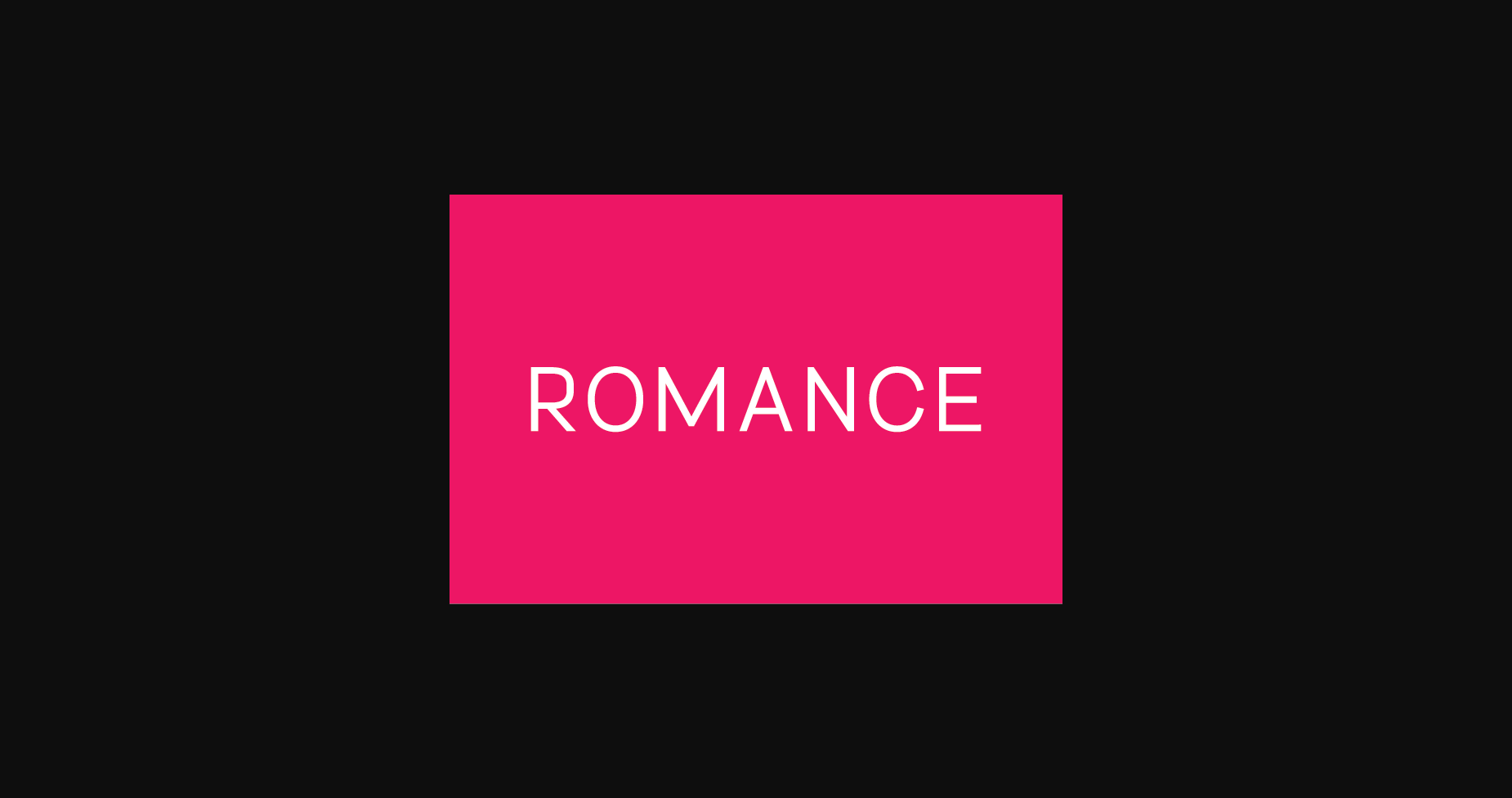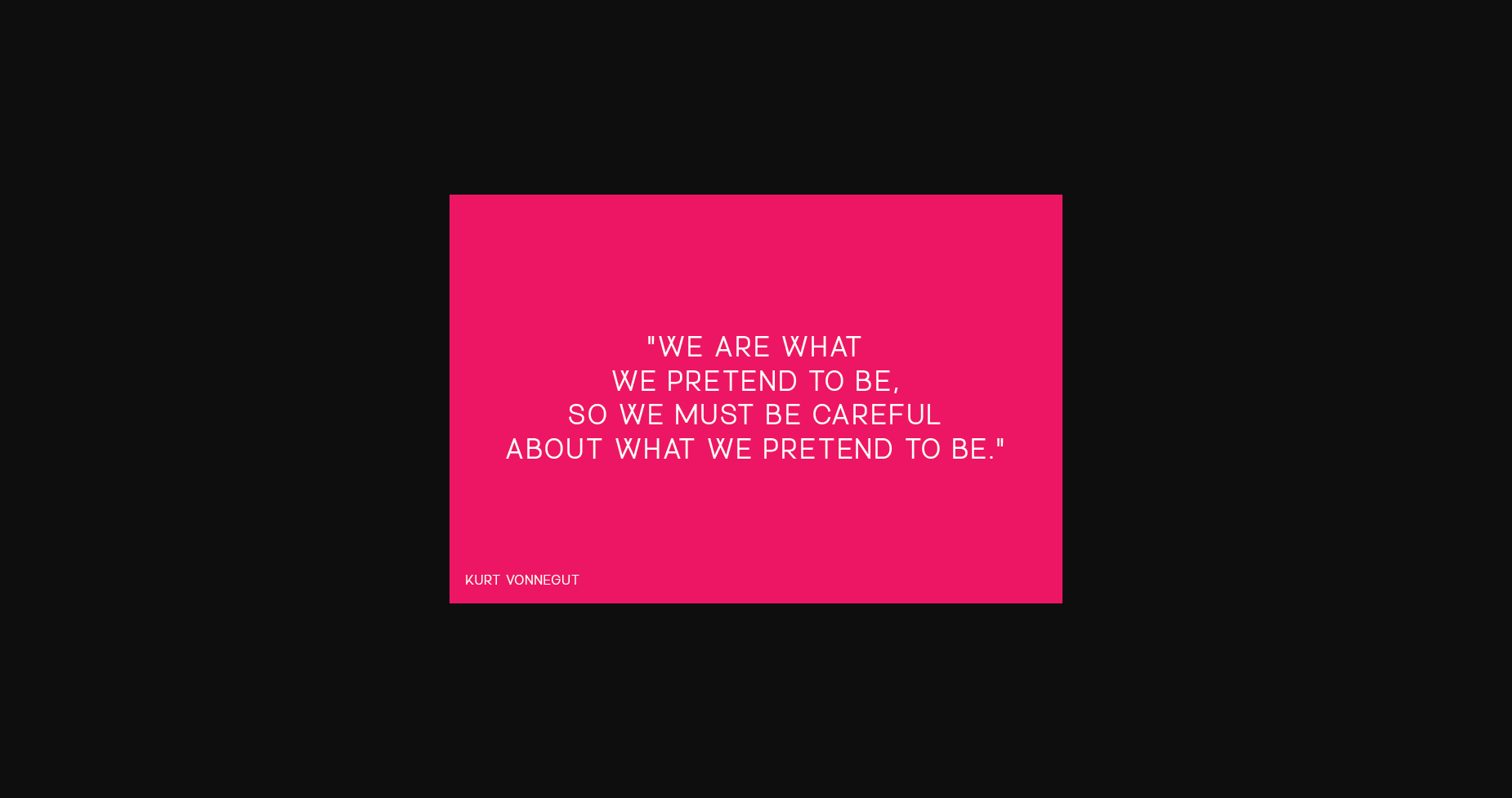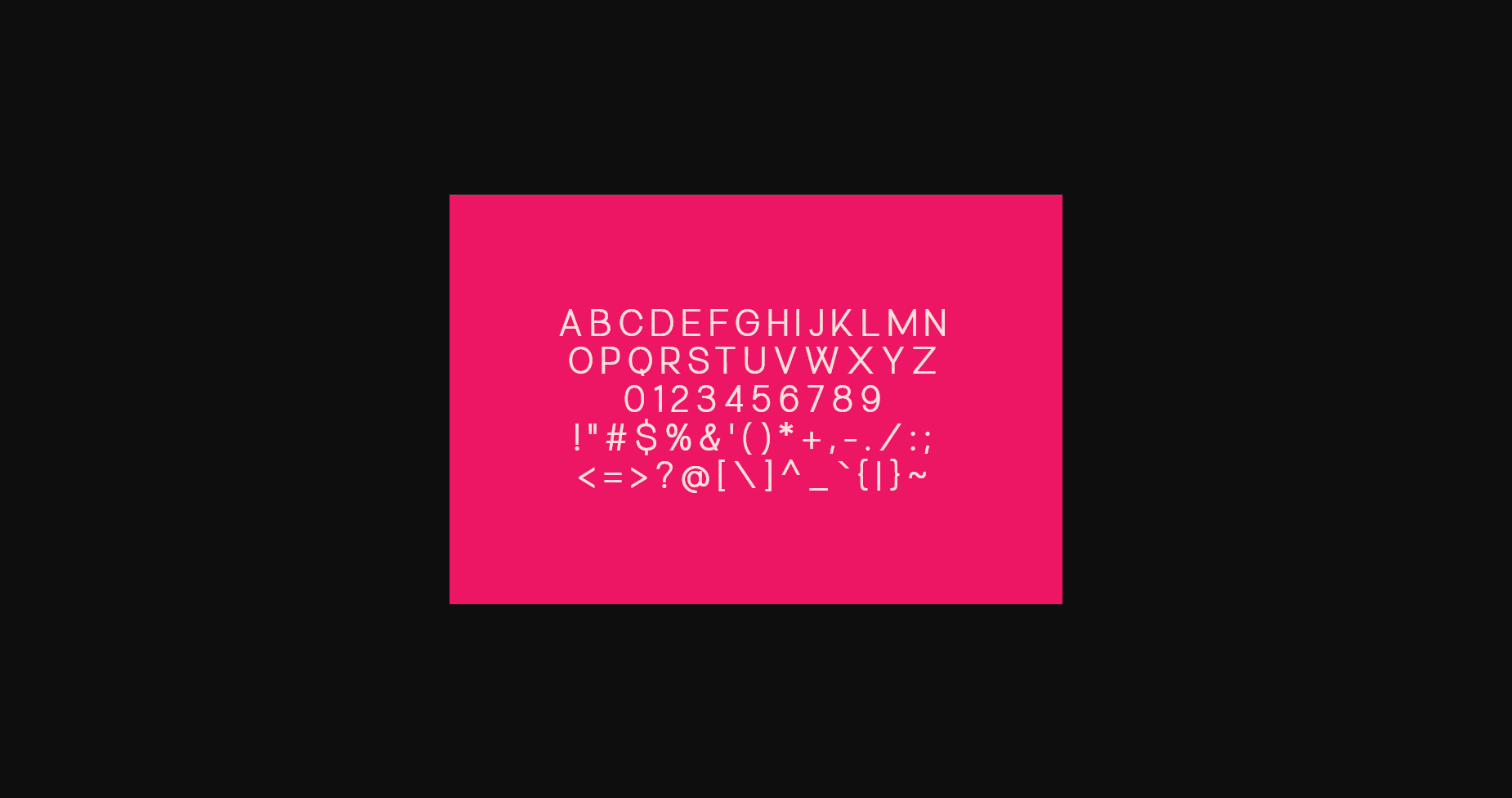
About Romance Font
Romance is a modern, classy sans serif typeface. Extremely versatile, this typeface is perfect for logos, weddings, invitations, quotes, advertisements, print, magazines, and more!